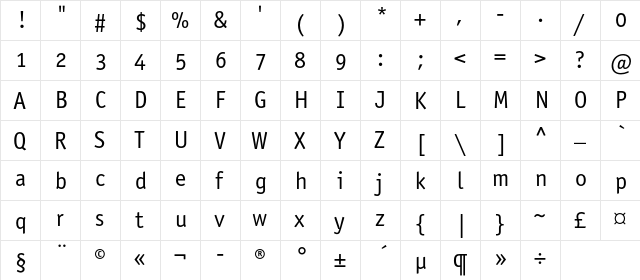
OfficinaSansBookOSC Regular Font Preview
OfficinaSansBookOSC Regular
Design Context for OfficinaSansBookOSC Typeface
OfficinaSansBookOSC is a composed and adaptable typeface that performs quietly and consistently across a wide range of design contexts.